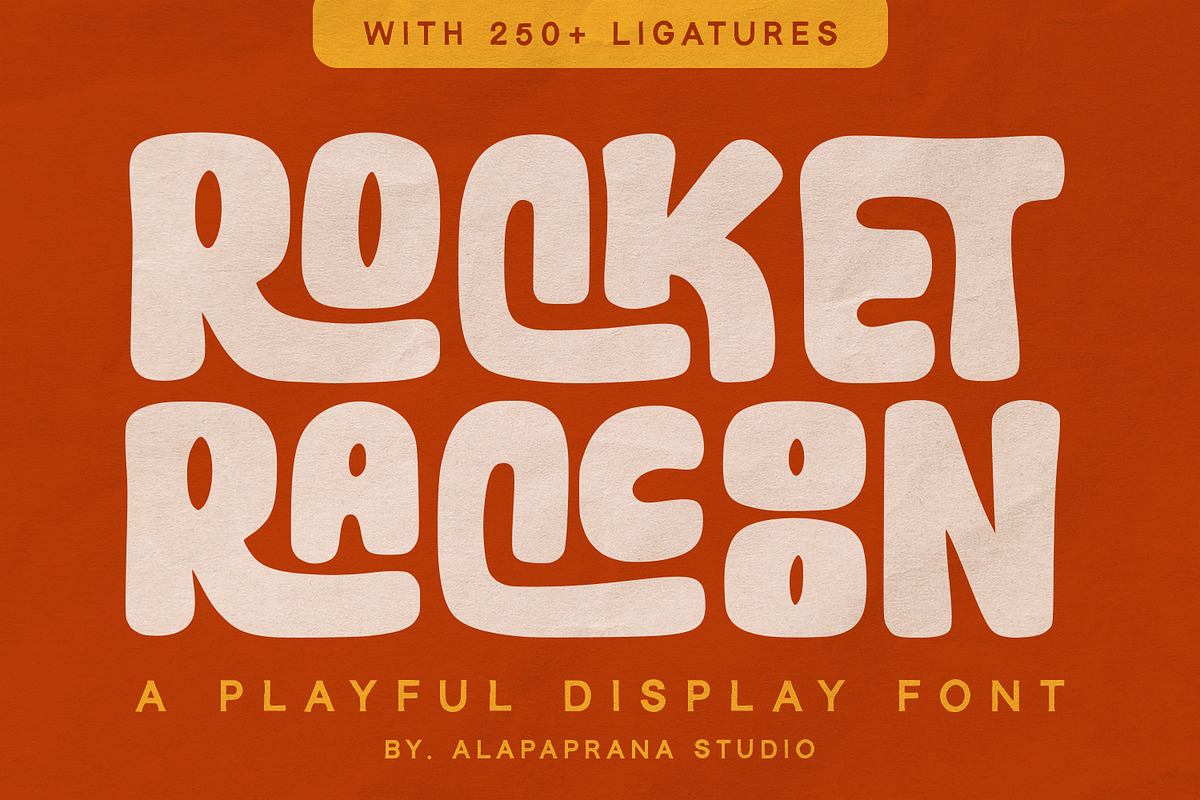
Rocket Raccoon - Display Sans Free Download
Rocket Raccoon Font - Display Sans Free Download
Rocket Raccoon Font - Display Sans Free Download is a bold and dynamic sans-serif typeface designed for high-impact, eye-catching designs. With its thick strokes, geometric structure, and modern appeal, this font is perfect for headlines, posters, branding, logos, and creative digital content.
Inspired by the energy and playfulness of comic-style typography, Rocket Raccoon Font - Display Sans Free Download adds personality and flair to any project. Its clean, strong lines make it a versatile choice for designs that need to stand out with bold character.